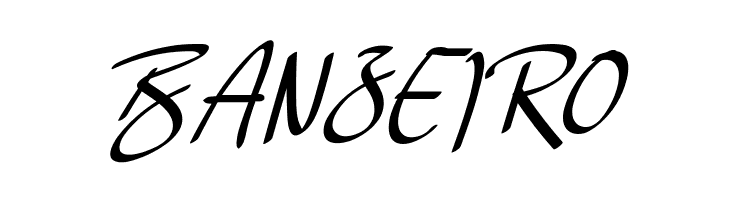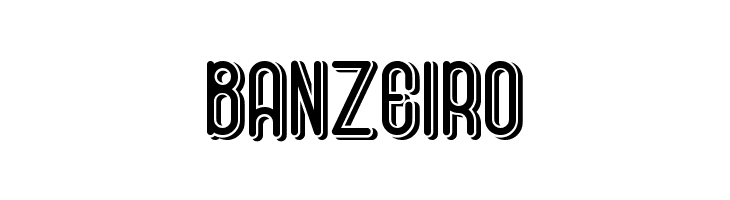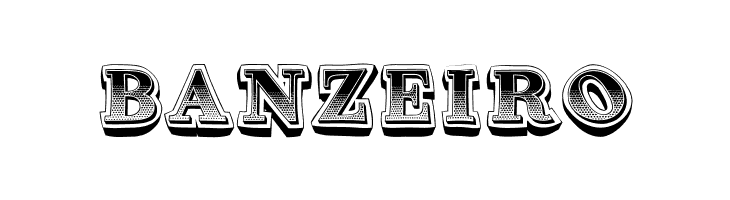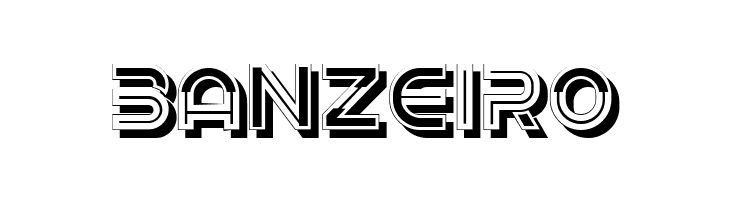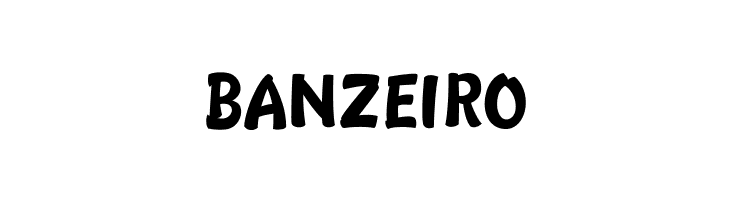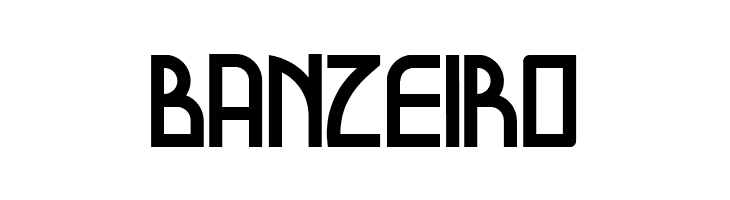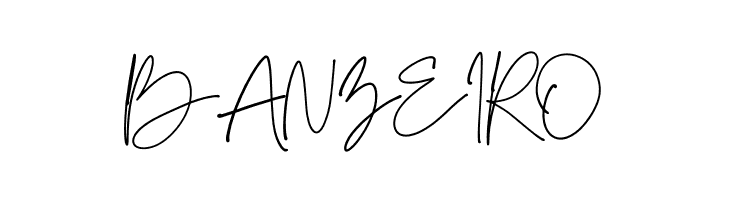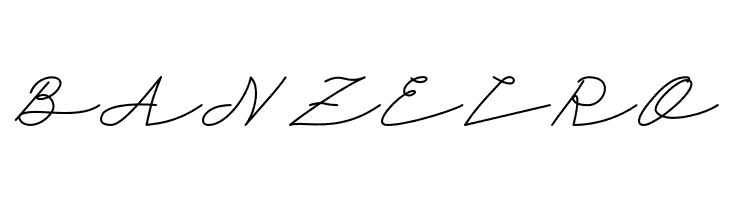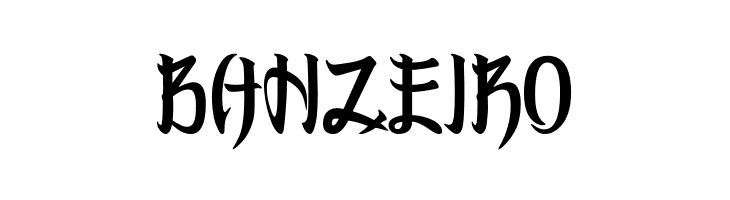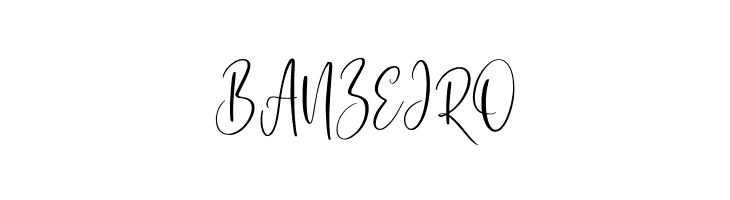
A bold, handwritten font with dynamic strokes and a modern, artistic flair.
A lively and dynamic script font with flowing, connected letterforms.
A bold, playful handwritten font with a casual and friendly style.
A playful, bold handwritten font with a modern twist.
A bold, angular font with a dramatic, gothic-inspired style.
A bold, calligraphic font with dramatic curves and sharp edges.
A bold, geometric typeface with consistent stroke width and tight spacing.
A bold, distressed font with a grunge texture and high contrast.
A bold, textured font with a brush stroke effect, ideal for impactful designs.
A playful, handwritten-style font with consistent stroke thickness and a casual feel.
A playful, hand-drawn style font with whimsical, irregular strokes.
A bold, decorative font with a retro, three-dimensional outline style.
A bold, brush-stroke style font with high contrast and an expressive, hand-drawn appearance.
An elegant and flowing script font with a sophisticated, calligraphic style.
A fluid and elegant script font with a handwritten appearance.
A refined, cursive script font with elegant, flowing lines.
A modern, handwritten font with a casual and flowing style.
A bold, geometric font with a three-dimensional, futuristic design.
A bold, futuristic font with geometric and stencil-like elements.
A playful, handwritten font with tall, narrow letters and a casual style.
A bold, decorative font with a vintage 3D shadow effect.
A bold, playful font with a hand-drawn, casual style.
A flowing, elegant script font with interconnected letters and ornate swashes.
An elegant, cursive script font with flowing curves and delicate loops.
A playful, bold font with rounded, thick strokes and a whimsical touch.
A bold, geometric font with a modern and digital aesthetic.
A bold, geometric font with rounded edges and a modern style.
A playful, italicized font with smooth, rounded strokes and moderate contrast.
A playful, rounded font with a casual, comic-like style.
A playful and elegant handwritten font with fluid, continuous strokes.
A playful and dynamic font with exaggerated curves and varying stroke widths.
A bold, dynamic font with thick strokes and a slightly slanted style.
A bold, playful handwritten font with dynamic and energetic characters.